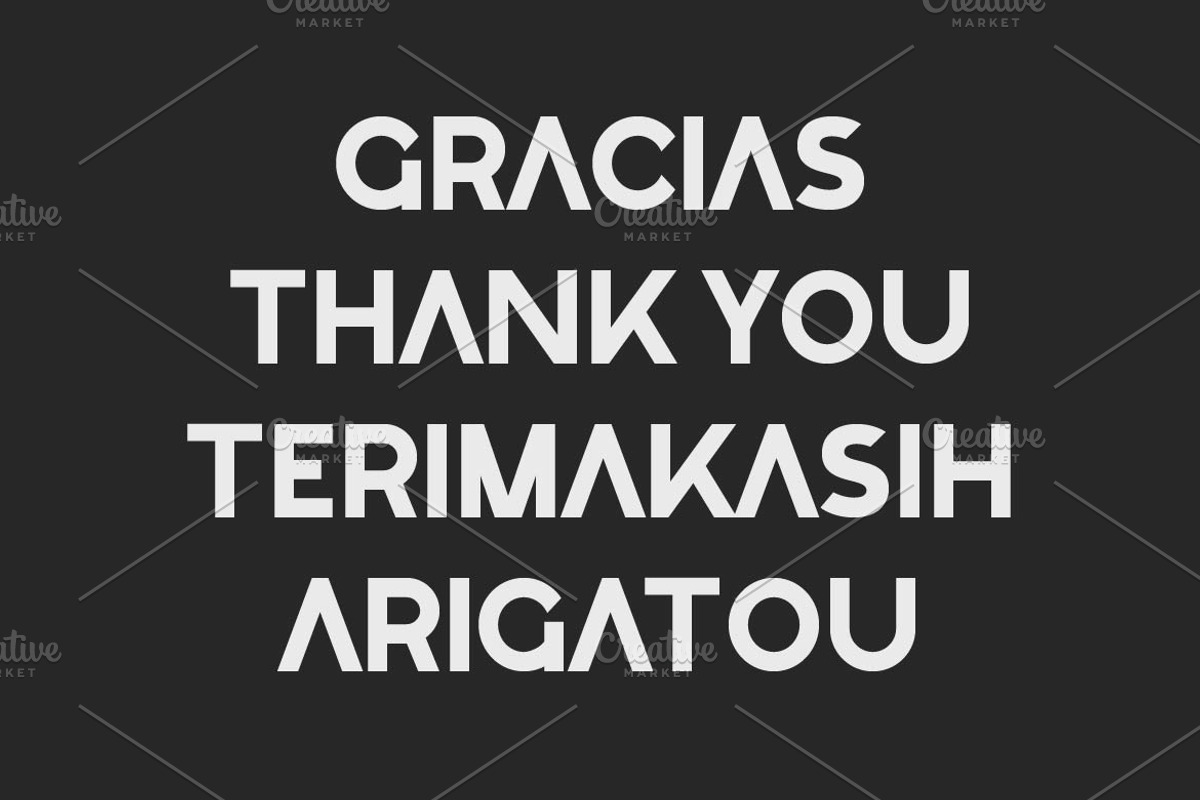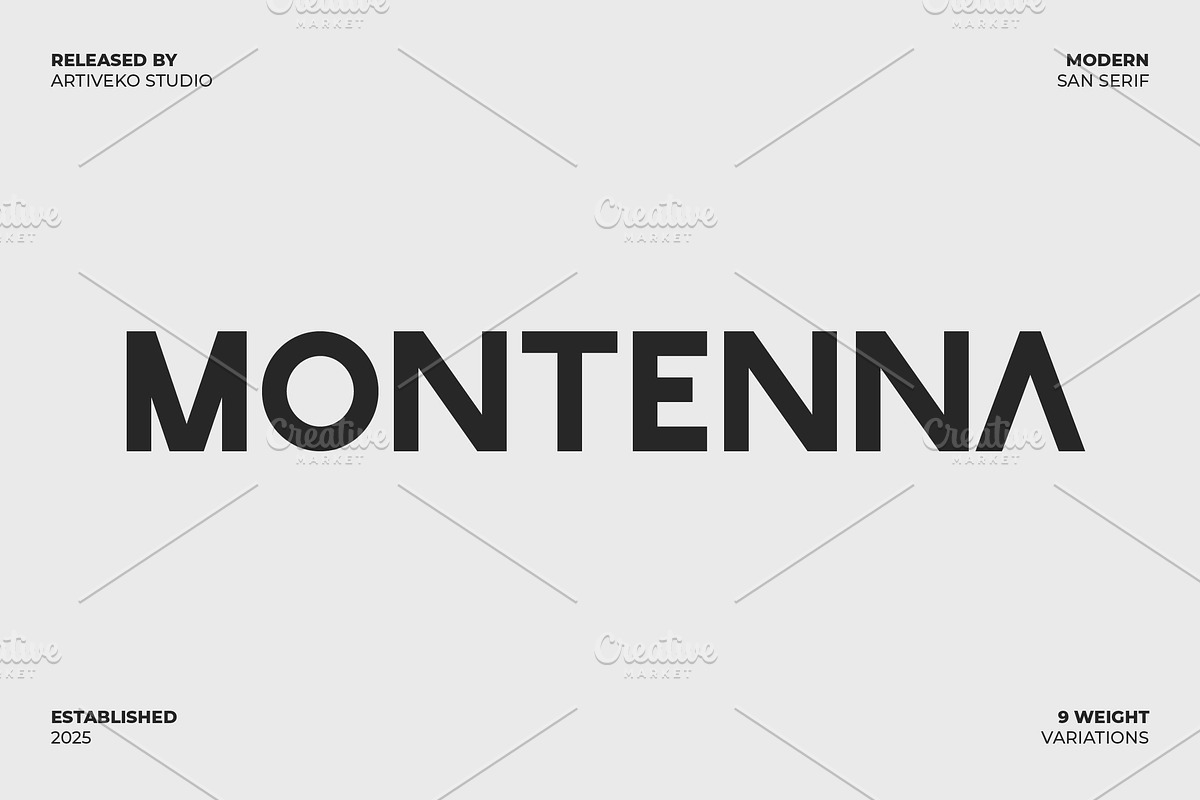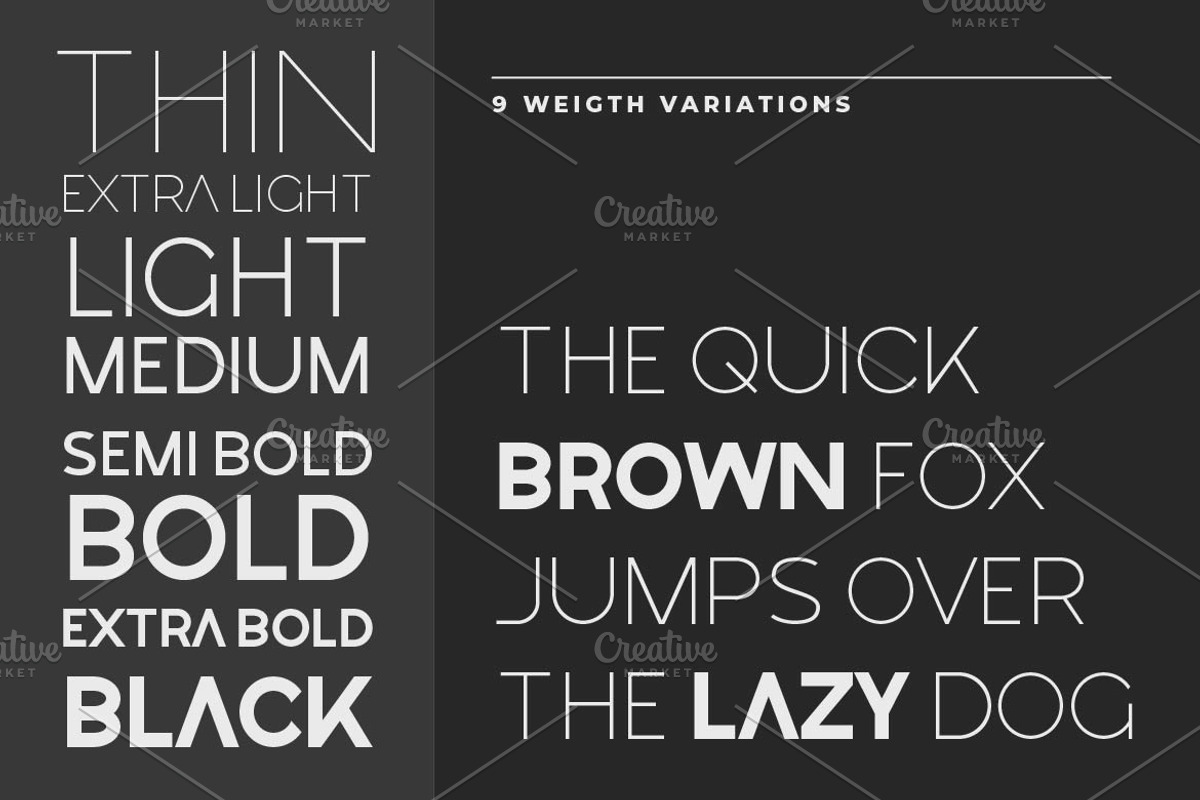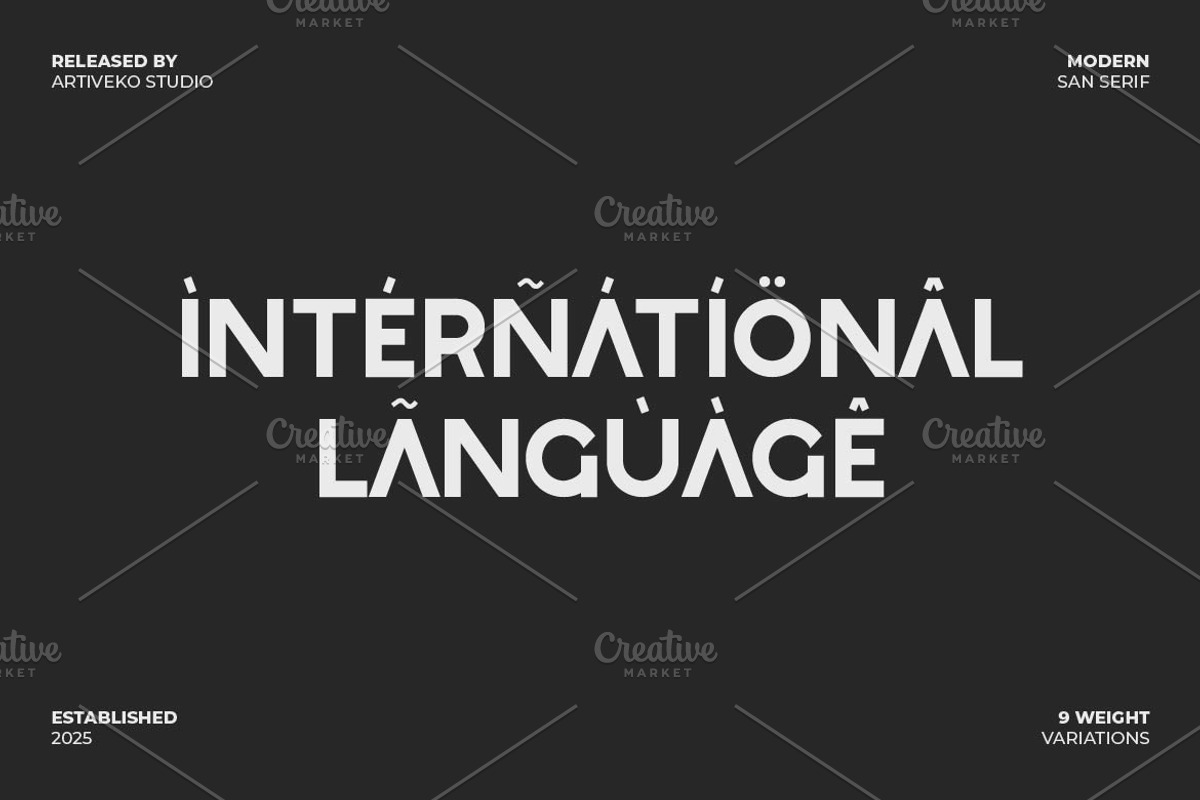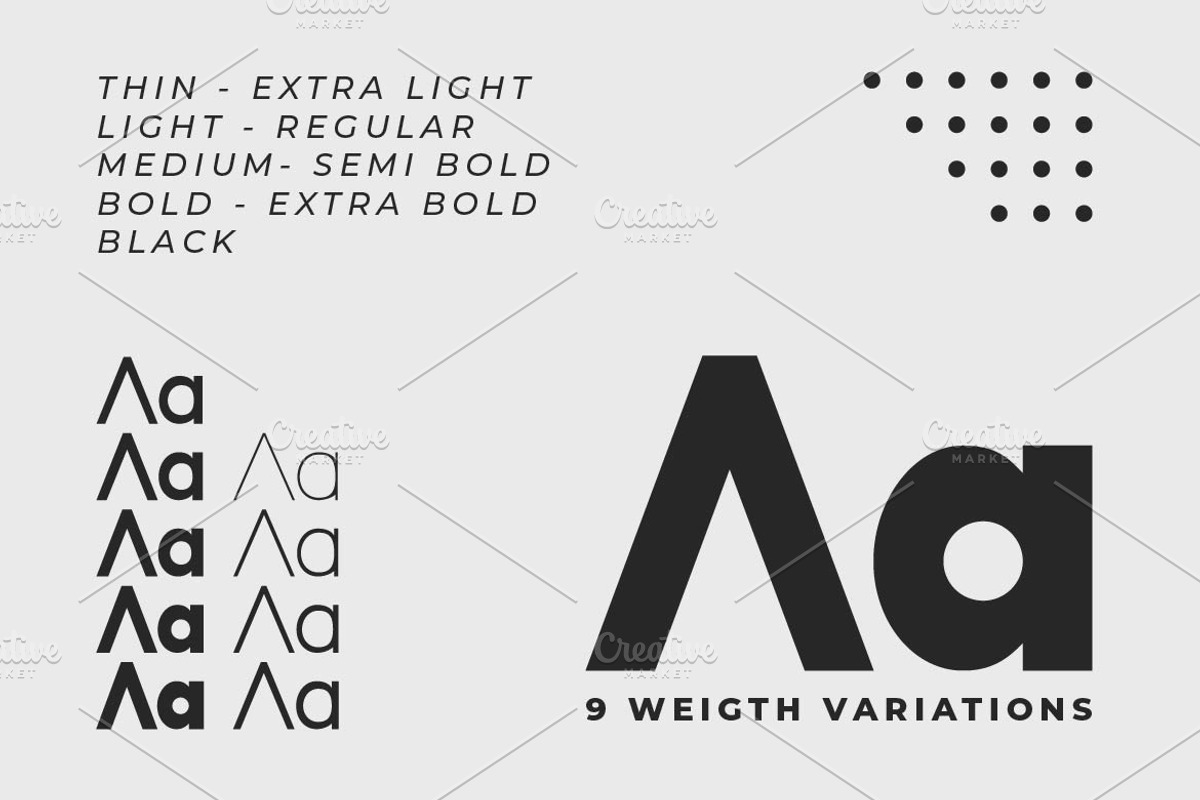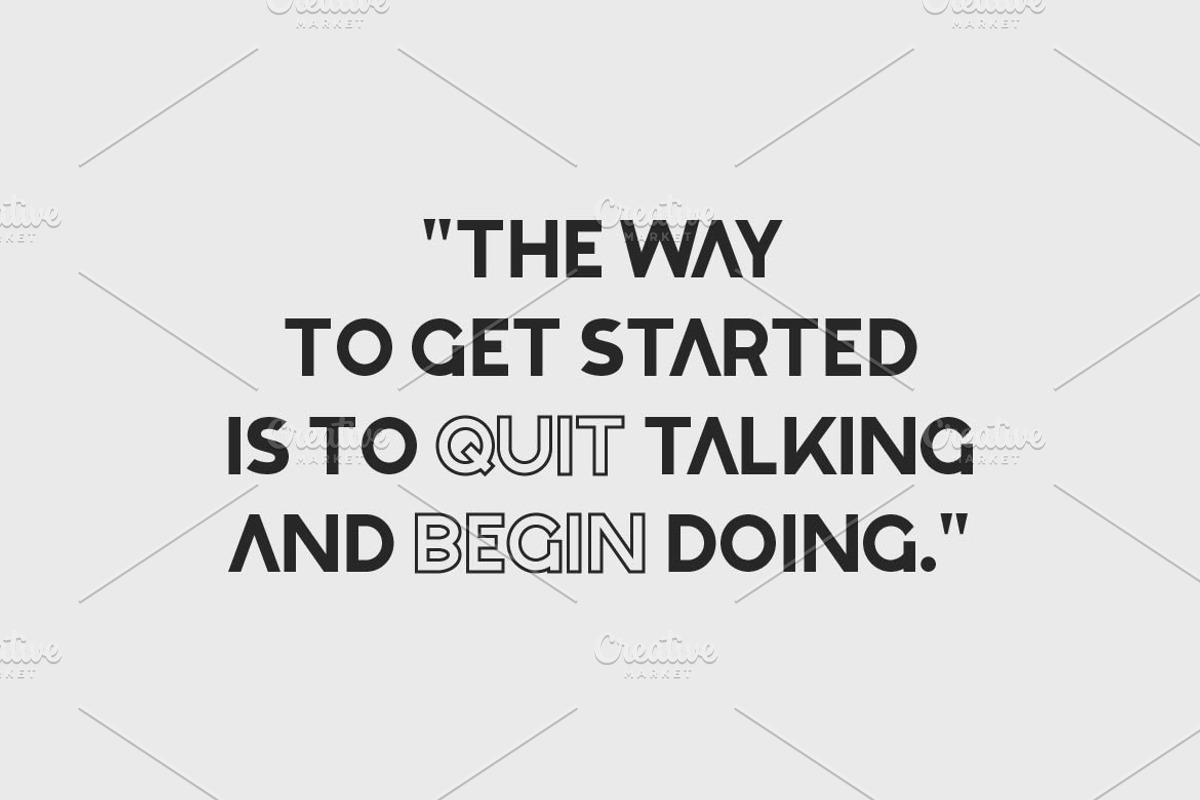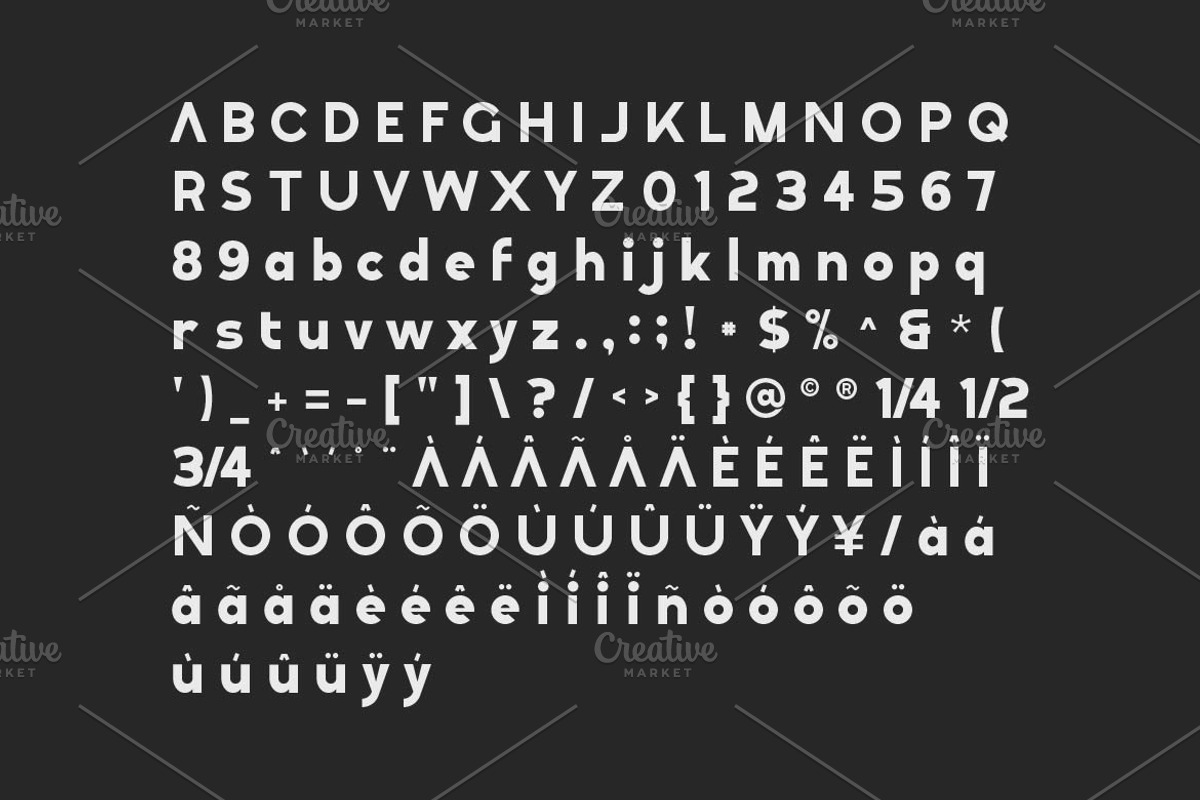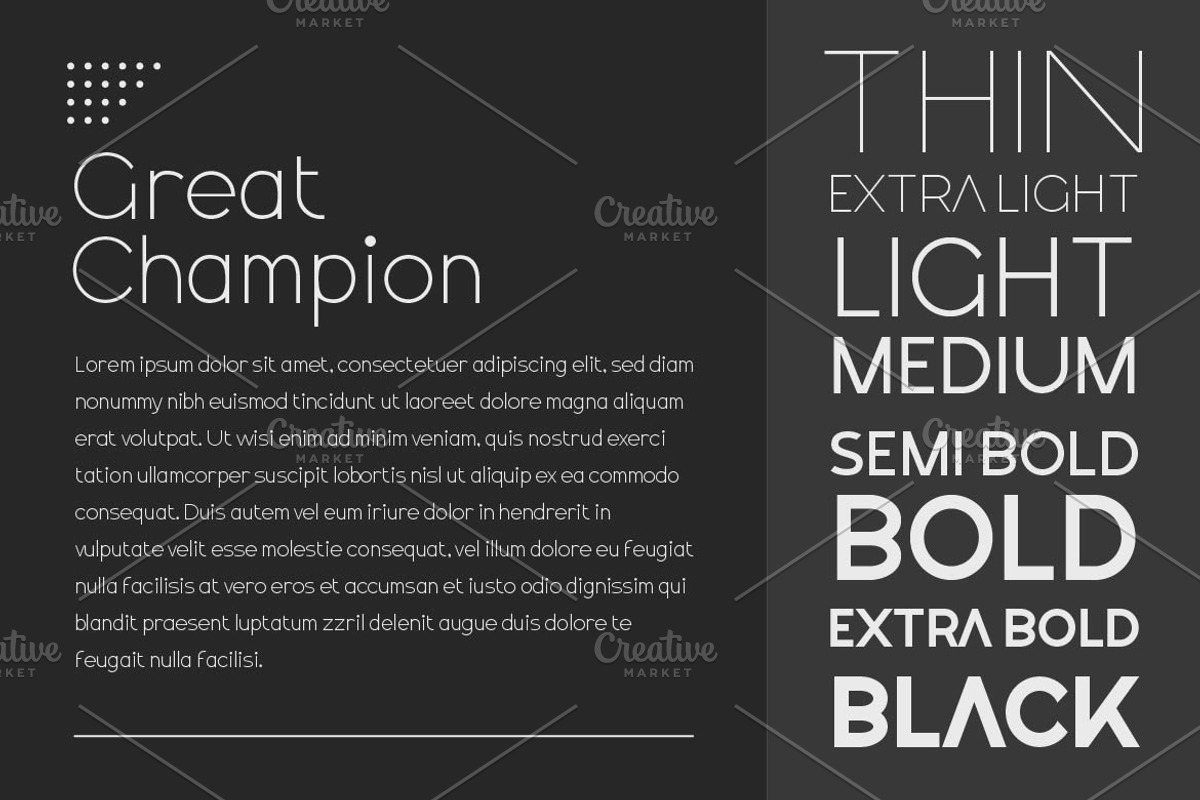
Montenna Modern Sans
Montenna is a modern sans serif font featuring sleek and balanced letterforms that blend simplicity with sophistication. Perfect for branding, editorial design, web interfaces, and corporate projects, Montenna offers a contemporary and professional aesthetic. With multilingual support, ligatures, and alternates, this versatile typeface ensures clarity and elegance, making it an excellent choice for designs that prioritize modernity and readability.